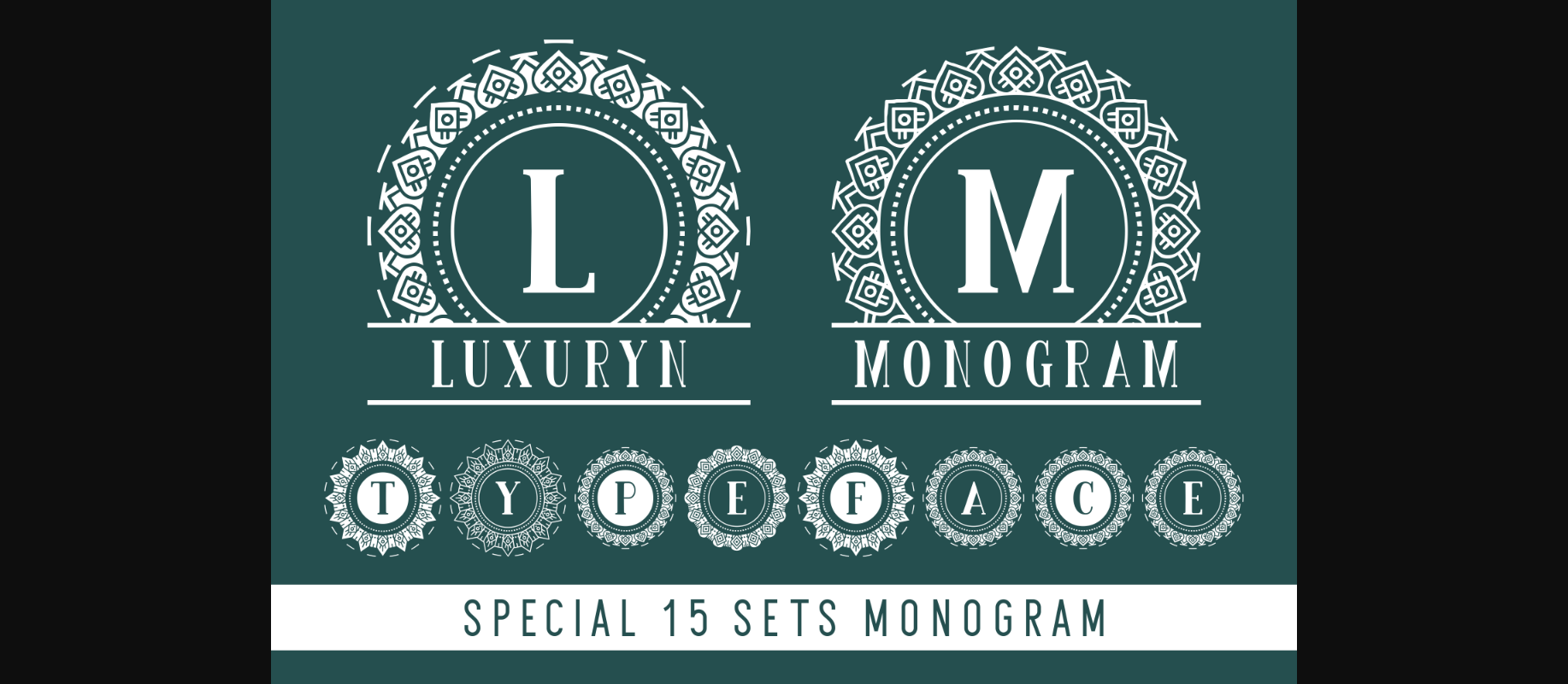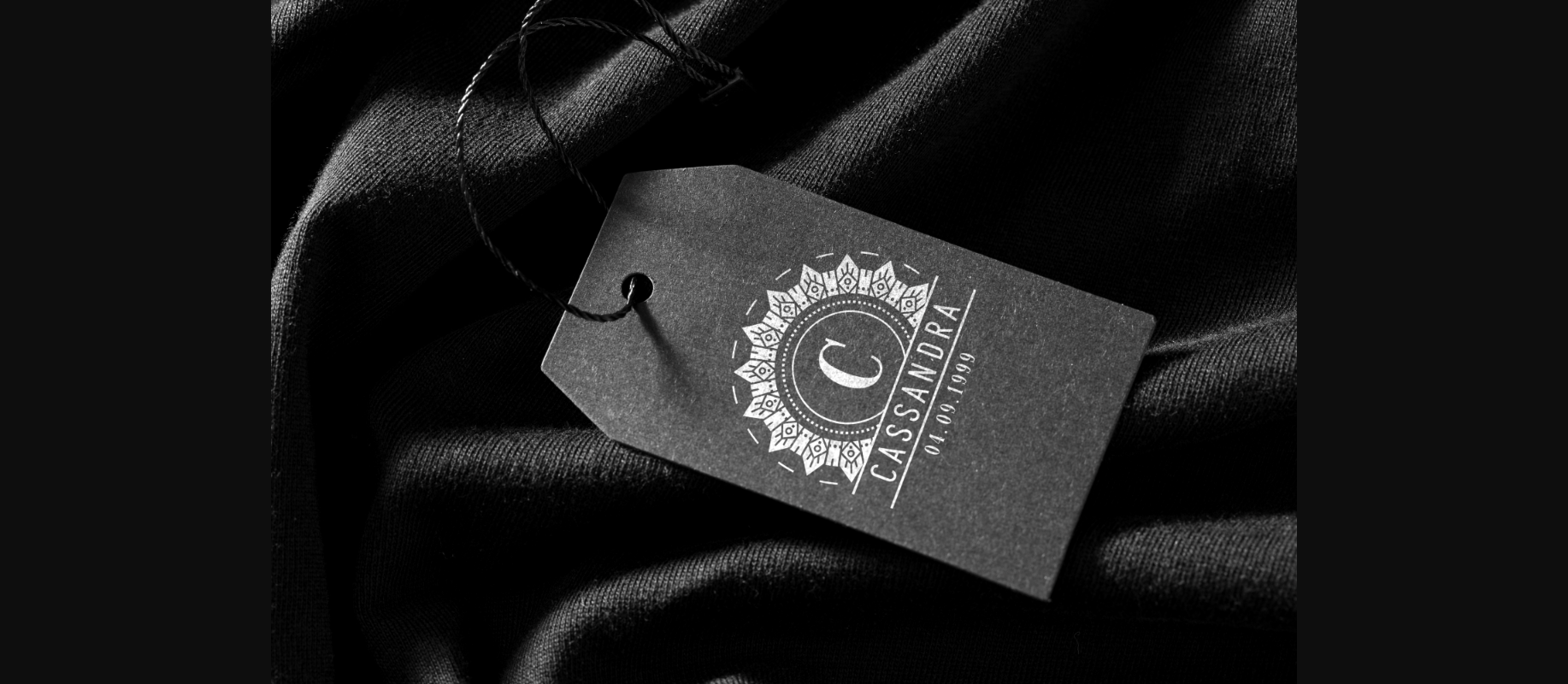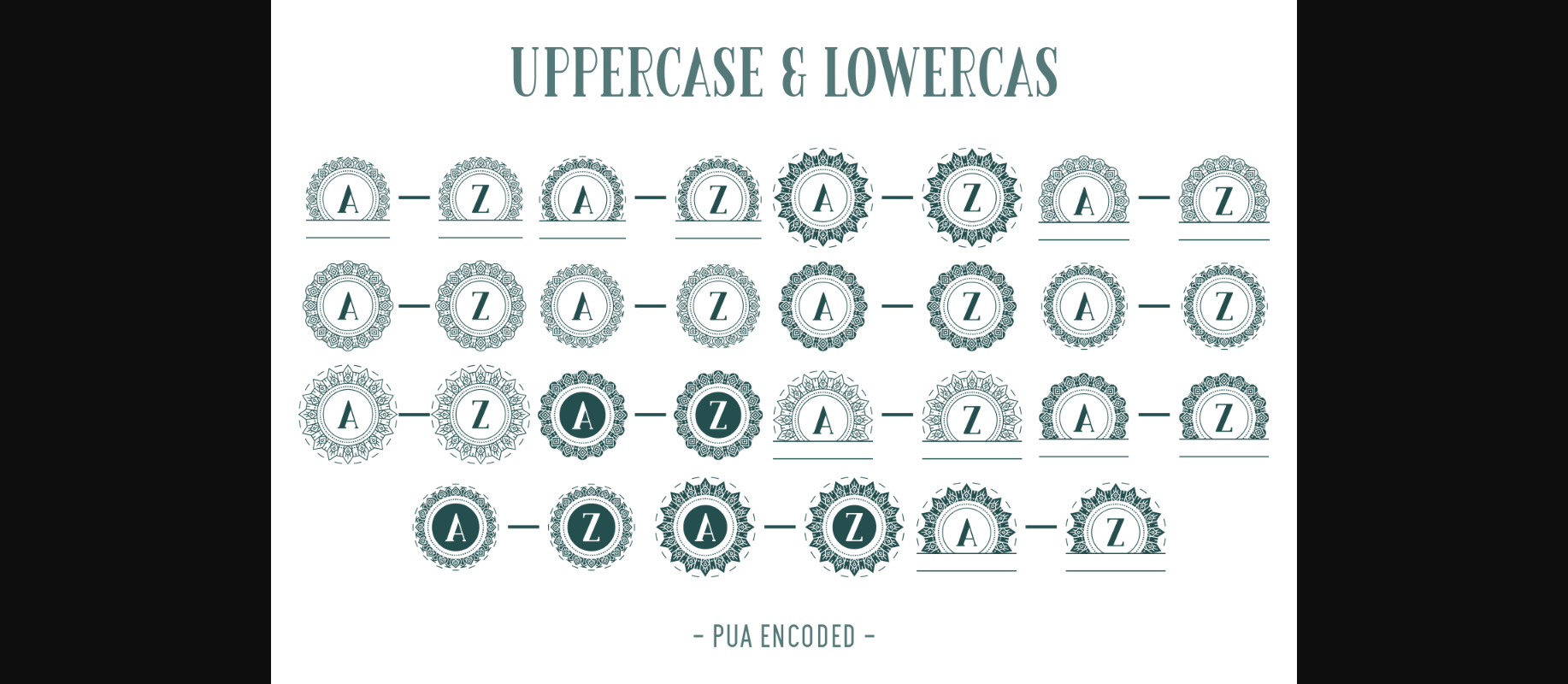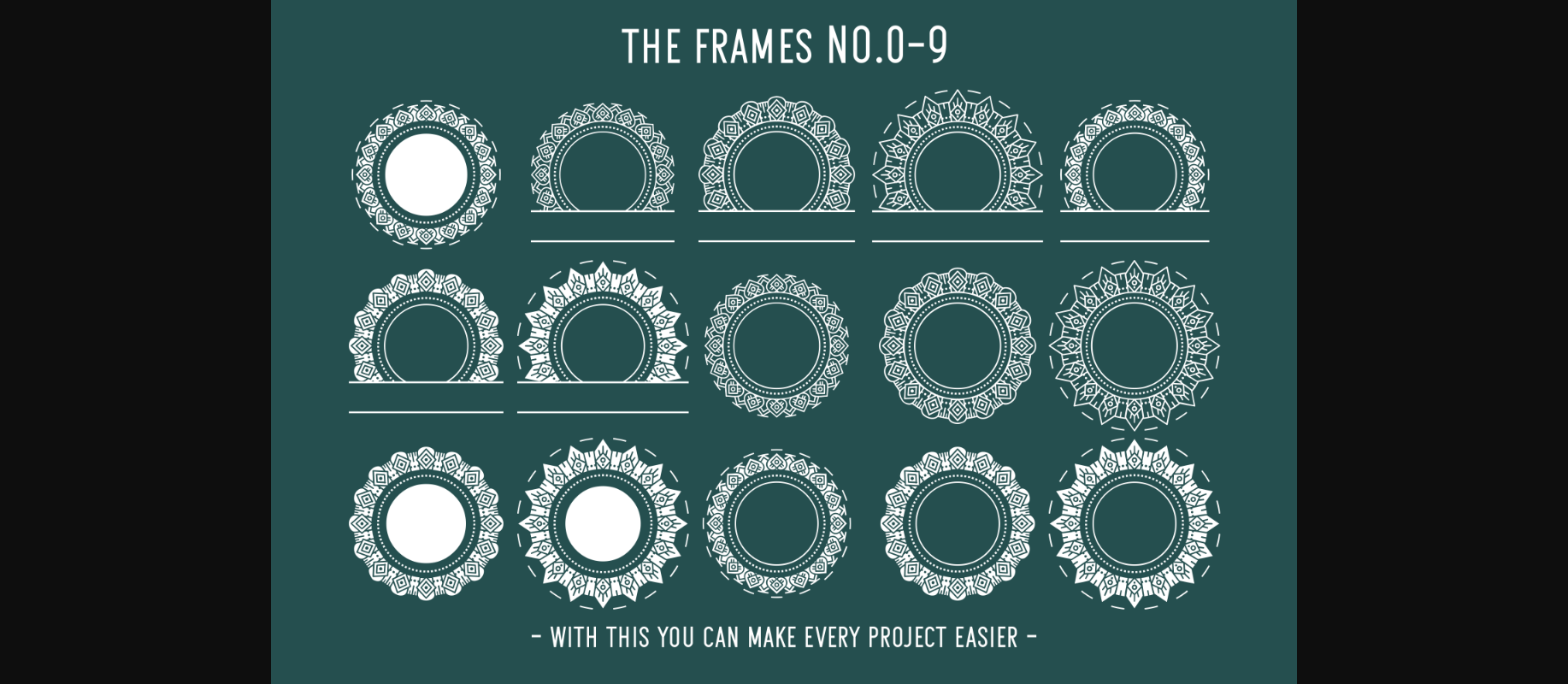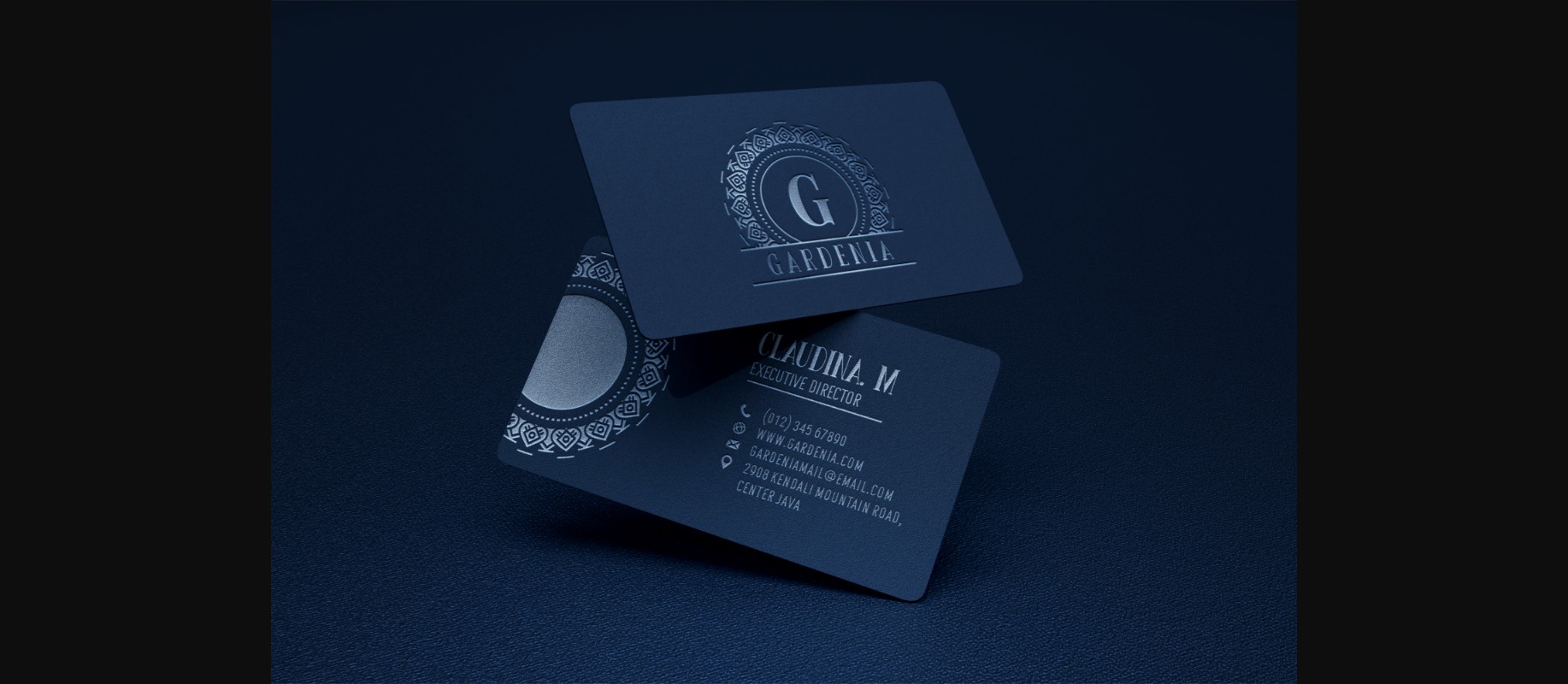
Luxuryn Font
About Luxuryn Font
Luxuryn is an elegant and highly detailed decorative font. Add this romantic and lovely looking font to each of your love letters, wedding invitations or favorite design ideas, and you will be astounded by the outcome.